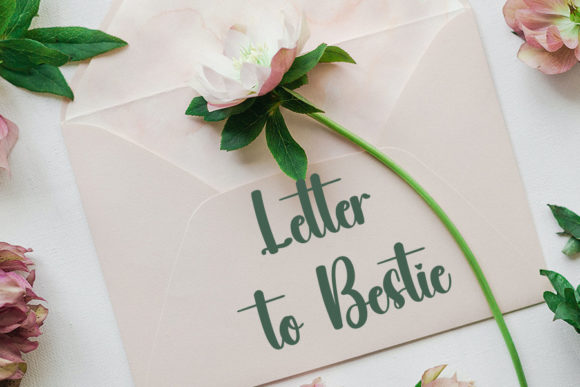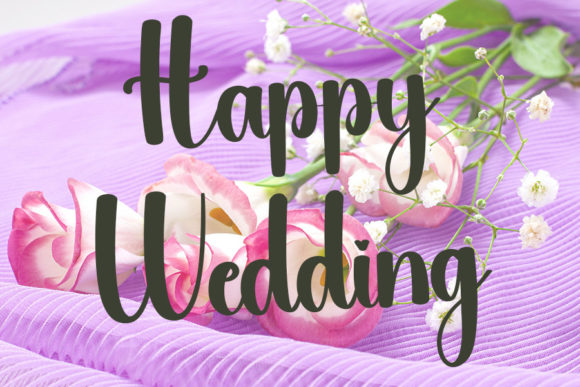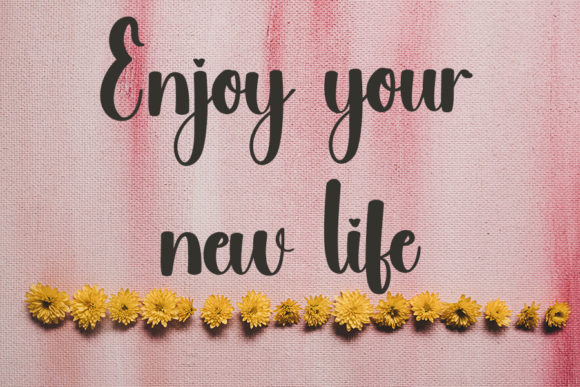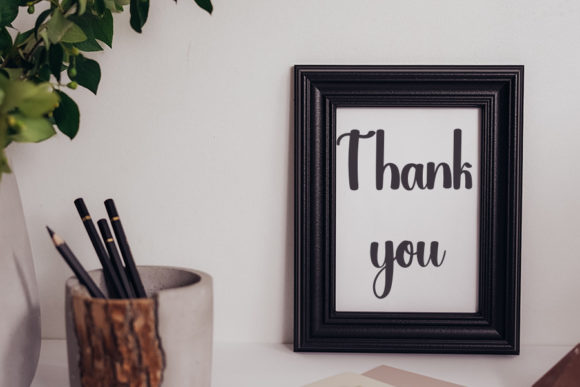
Sweet Bestie Font
About Sweet Bestie Font
Sweet Bestie emerges as a friendly handwritten font, intricately crafted to secure its place as an instant favorite in the realm of typography. This font not only serves as a design element but also as a testament to the careful artistry behind its creation. Balancing classy calligraphic influences with a contemporary and fresh feel, Sweet Bestie embodies a harmonious blend of timeless elegance and modern charm.
At its essence, Sweet Bestie exudes a welcoming and approachable character. The meticulous design process ensures that each stroke carries a sense of warmth, making it an ideal choice for projects seeking to establish a personal connection with the audience. The handwritten style imparts an intimate touch, encouraging users to engage with the text on a more personal level.
The infusion of calligraphic influences in Sweet Bestie contributes to its overall sophistication. Thoughtfully designed curves and lines create a visual symphony, adding a touch of timeless grace to the font. This incorporation of classic calligraphy enhances the font’s versatility, allowing it to seamlessly adapt to a range of design contexts while preserving its inherent charm.
What distinguishes Sweet Bestie is its ability to simultaneously evoke familiarity and contemporaneity. While paying homage to enduring calligraphic styles, it introduces a fresh and modern twist, injecting vitality into the handwritten genre. This dual identity makes Sweet Bestie a versatile choice, suitable for a diverse array of applications, from casual branding to formal event invitations.
Beyond being a font, Sweet Bestie embodies a friendly and contemporary handwritten style. Its meticulous design, merging classic influences with a modern flair, positions it as a flexible and beloved option for various design projects. Whether deployed for branding, invitations, or any creative endeavor demanding a personal and stylish touch, Sweet Bestie stands poised to become a cherished favorite in the world of typography. Embrace the charm and versatility of Sweet Bestie as it infuses your designs with a touch of personality and timeless elegance.